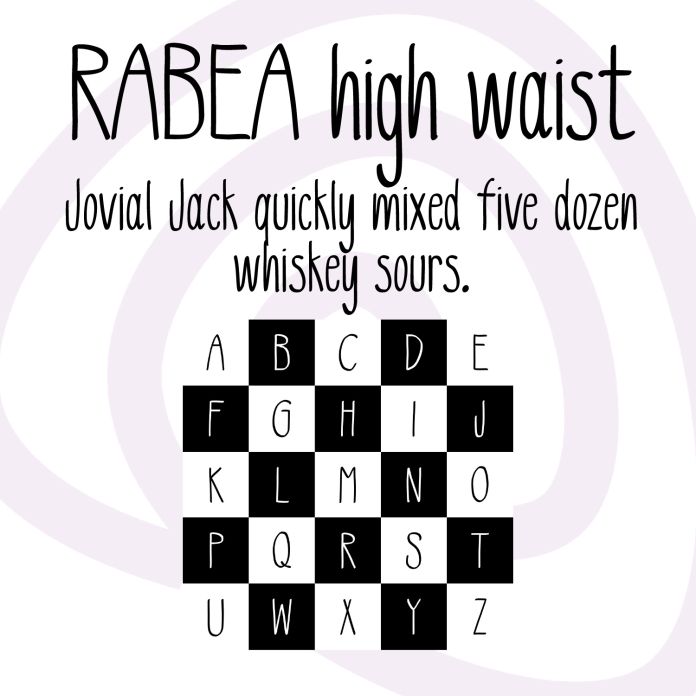
Rabea High Waist is a straight and upright handwritten fontstyle for many occasions. Clear majuscules and playful minuscules with a high baseline for a cool look. Use for headlines or sections with more text. Great readability.